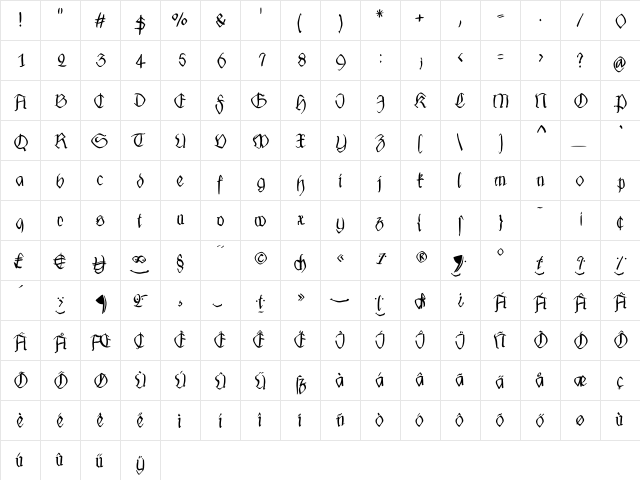
FraxHandwrittenXtrem Regular
Design Context for FraxHandwrittenXtrem Typeface
FraxHandwrittenXtrem flows with the natural rhythm of handwritten lettering, making it ideal for designs that call for warmth and personal expression.
Font Pairing: Combine FraxHandwrittenXtrem with a simple geometric sans for maximum contrast — the tension between flowing curves and clean structure is a classic typographic pairing.
Pro Tip: Use FraxHandwrittenXtrem for short runs of text — names, titles, or taglines. Extended body copy in script faces tires the eye quickly.